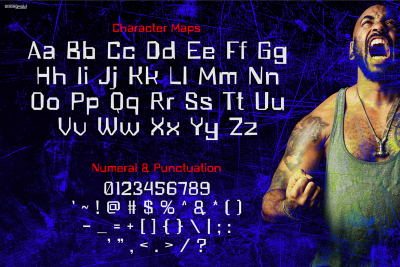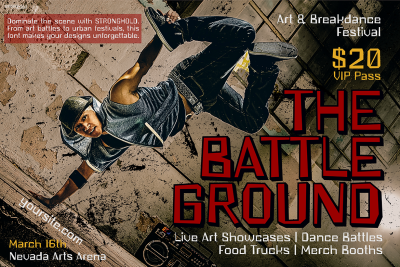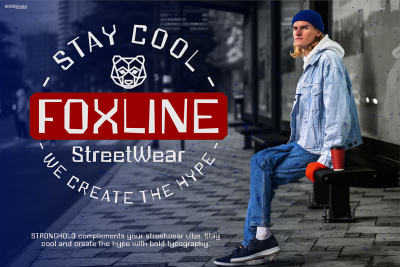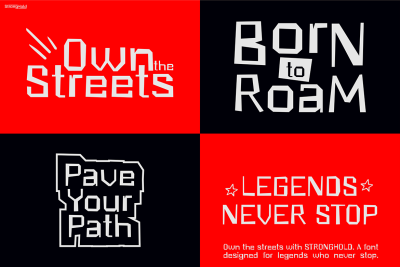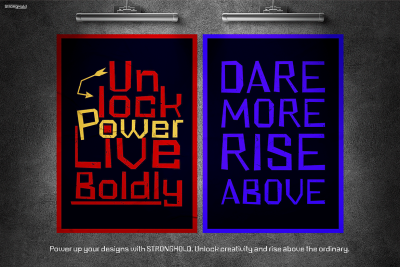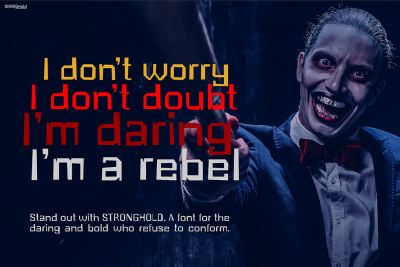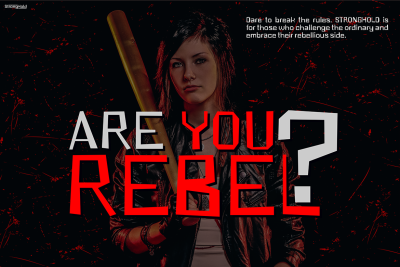
Music Font STRONGHOLD is a bold, impactful typeface designed to evoke strength and intensity. Its sharp, geometric lines and industrial-inspired shapes make it perfect for projects that demand attention and convey power. Moreover, with edgy and commanding elements, STRONGHOLD captures the energy of heavy music genres, from rock to metal. At the same time, it maintains modernity and sophistication. Additionally, the font’s angular design and clean cuts add discipline, making it versatile for music branding and creative purposes.
This font stands out by balancing ruggedness and clarity. Its bold letterforms scream authority, yet the clean design ensures readability. Furthermore, whether used on album covers, band merchandise, or posters, STRONGHOLD creates a striking visual impact. In addition, its dynamic yet minimalist feel works well on digital platforms and print materials alike. This ensures it remains functional across various mediums. Additionally, STRONGHOLDโs bold nature is complemented by its ability to adapt to various aesthetic themes, whether gritty or polished.
With its ability to seamlessly integrate into different design projects, STRONGHOLD becomes a reliable choice for creative professionals looking to make a powerful statement. Its design not only embodies strength but also showcases a balance of character and structure. Whether aiming for modern branding or a bold artistic touch, STRONGHOLD exceeds expectations.
Music Font STRONGHOLD Suitable For
Music Font STRONGHOLD is perfect for those in the music and entertainment industry. For instance, it works well for rock bands, metal musicians, and concert organizers aiming for an unforgettable visual identity. Album covers, tour posters, and band logos benefit from STRONGHOLDโs bold style. Consequently, this font perfectly complements the intensity of these genres.
Graphic designers can use STRONGHOLD for event branding or merchandise. Specifically, the fontโs boldness is ideal for t-shirts, hoodies, and apparel that demands attention. Likewise, social media marketers can craft eye-catching banners and posts with this typeface. These campaigns will leave a lasting impression. Furthermore, STRONGHOLDโs adaptability allows it to align with different audience demographics, making it a versatile asset for both niche and mainstream markets.
Beyond music, STRONGHOLD suits industries seeking to convey power and reliability. For example, sports teams, gaming brands, and tech startups can use it to communicate strength and innovation. It also fits perfectly in the context of motivational campaigns, bold advertisements, and impactful website headers. Ultimately, its versatile design ensures itโs a go-to choice for bold statements that leave a lasting impression.